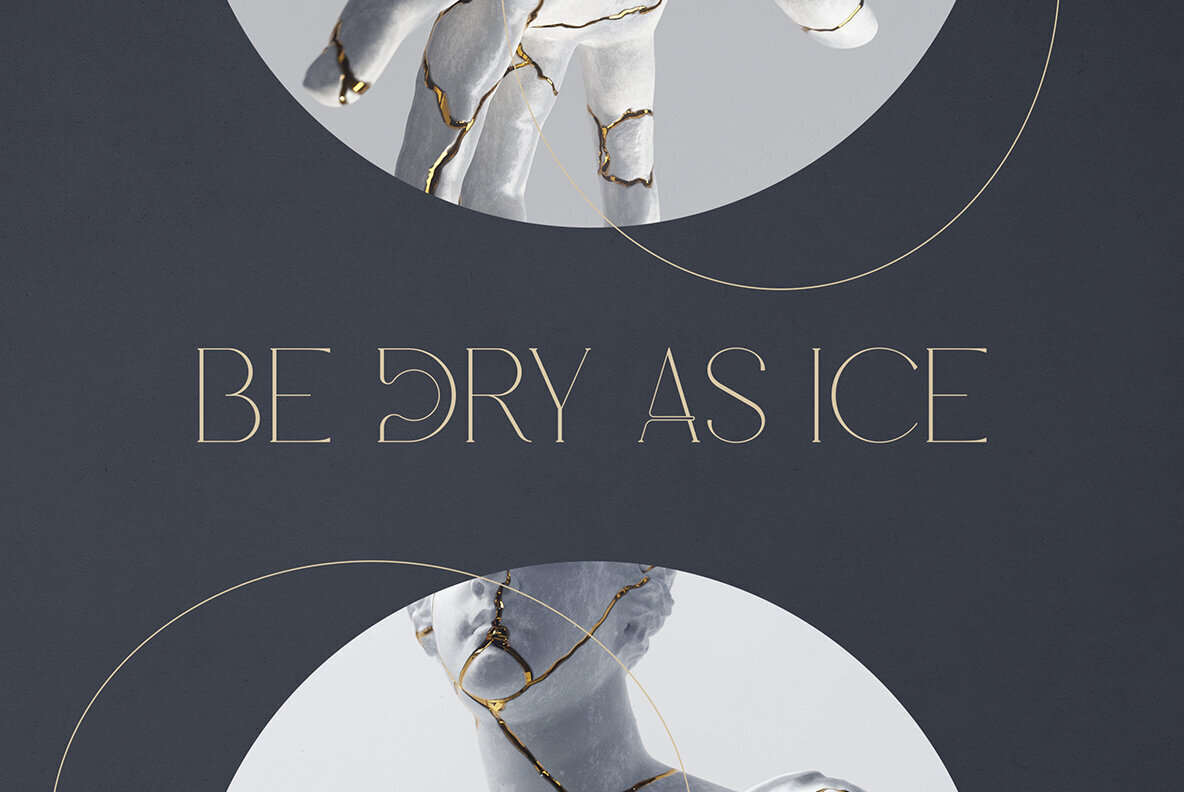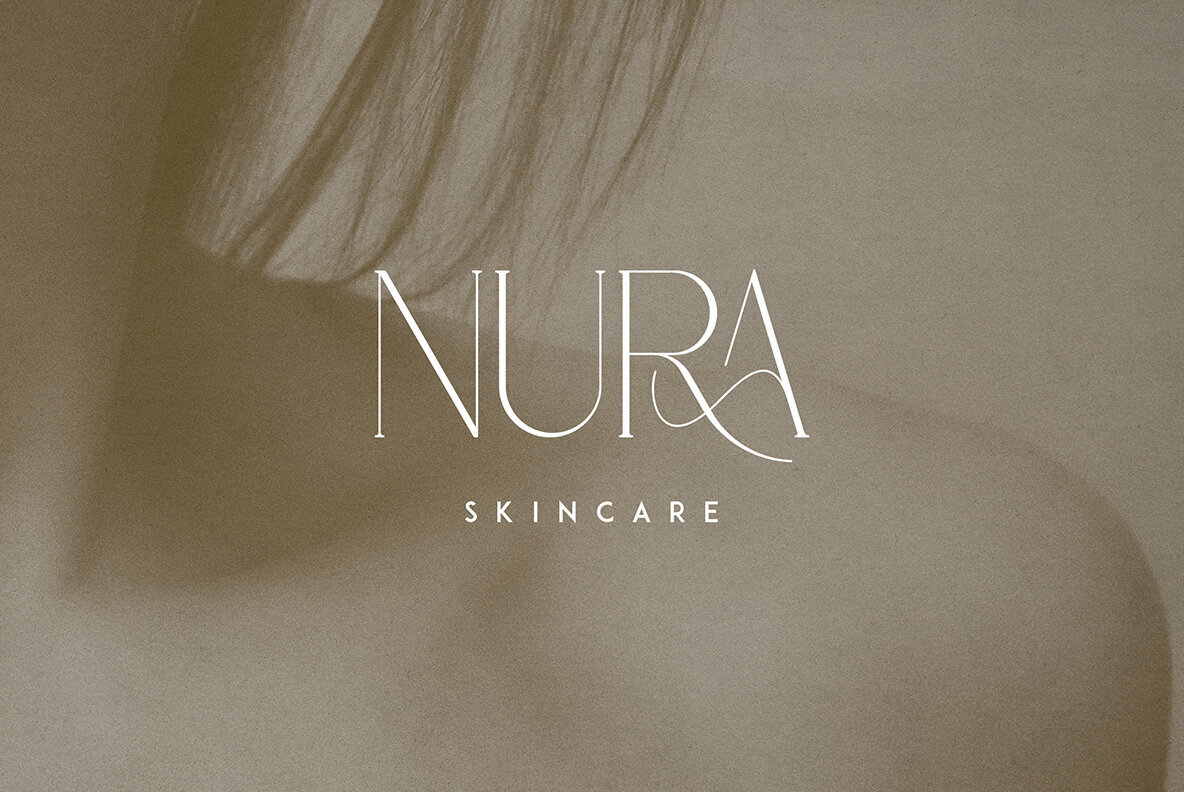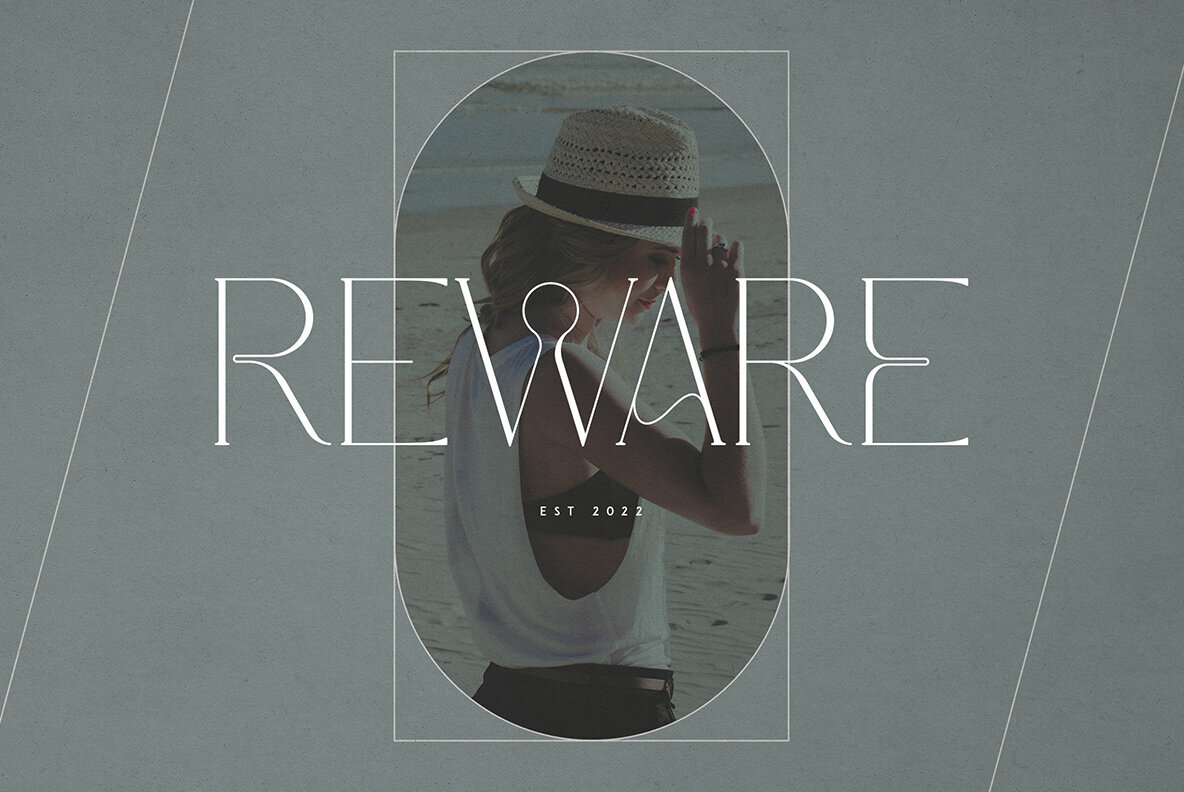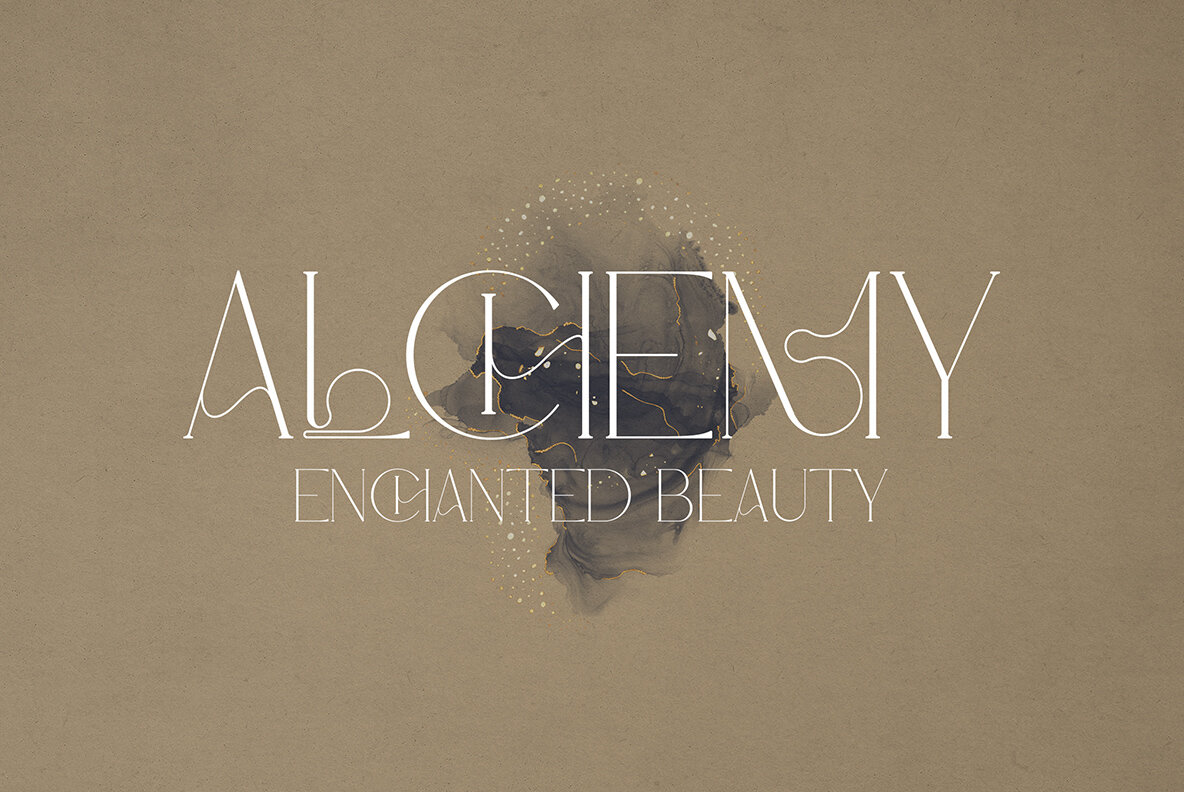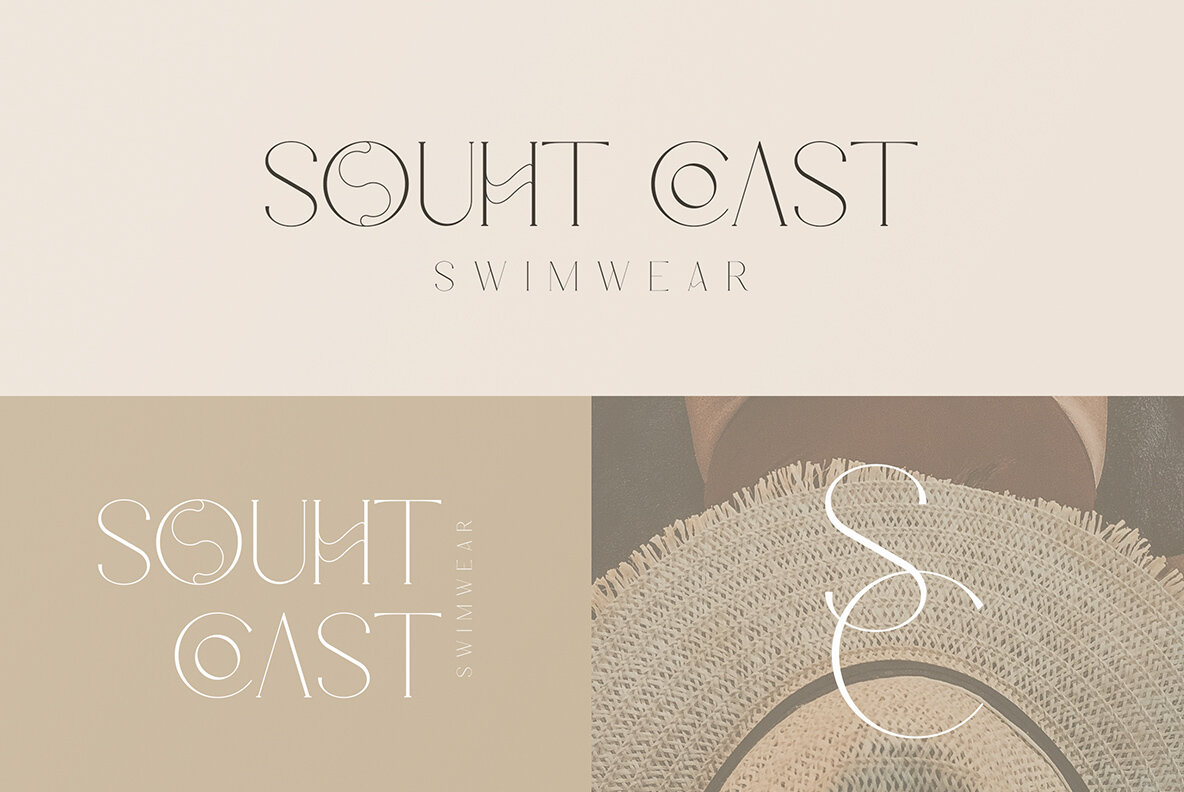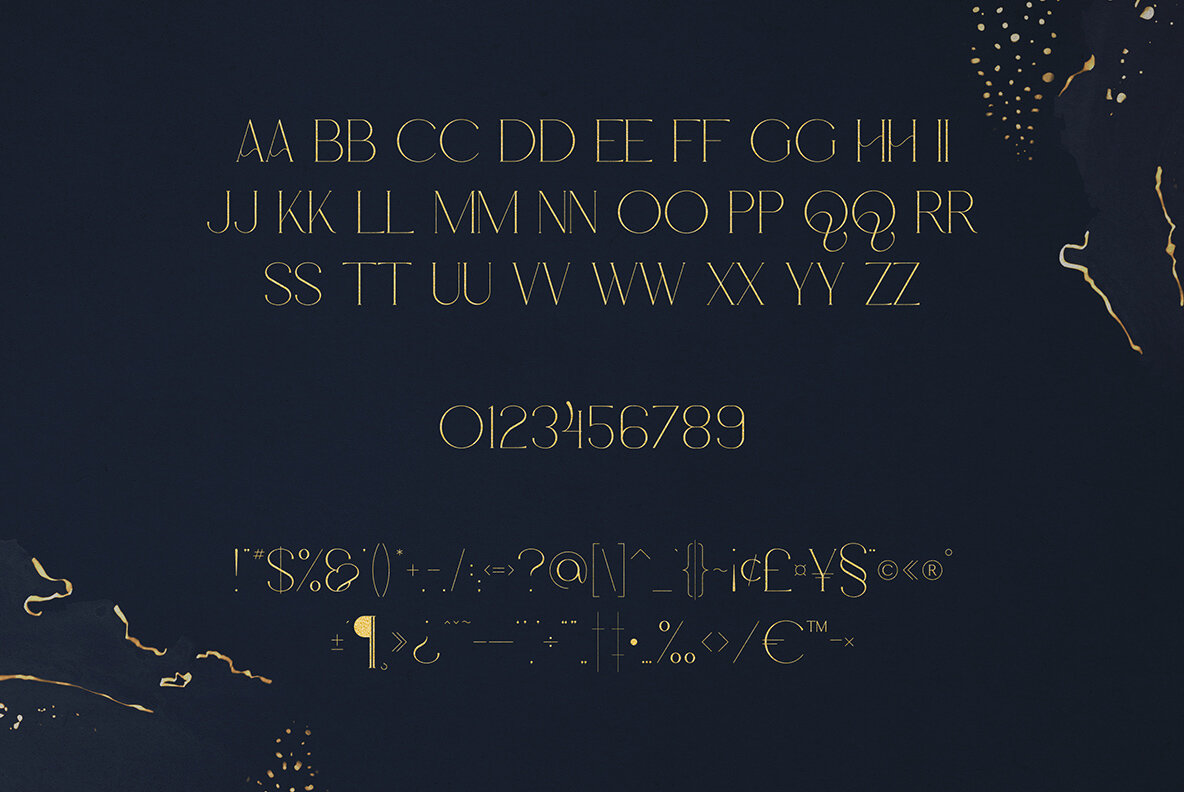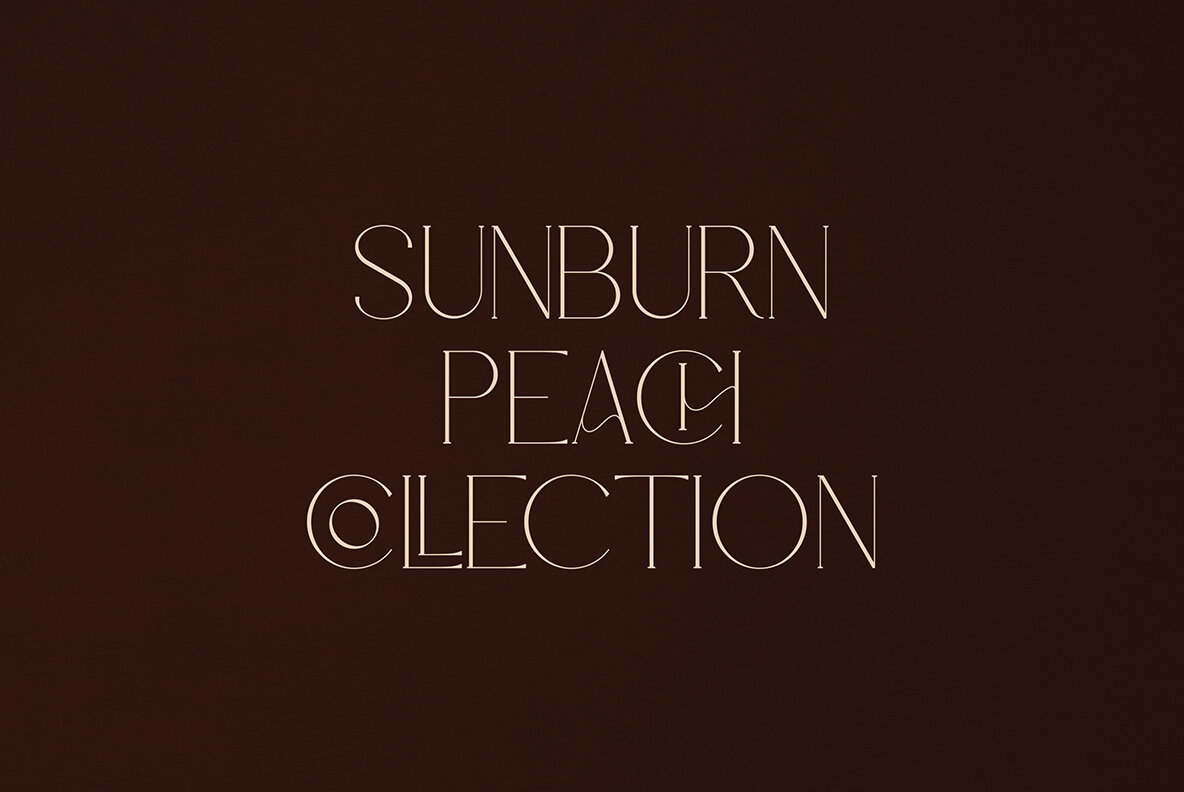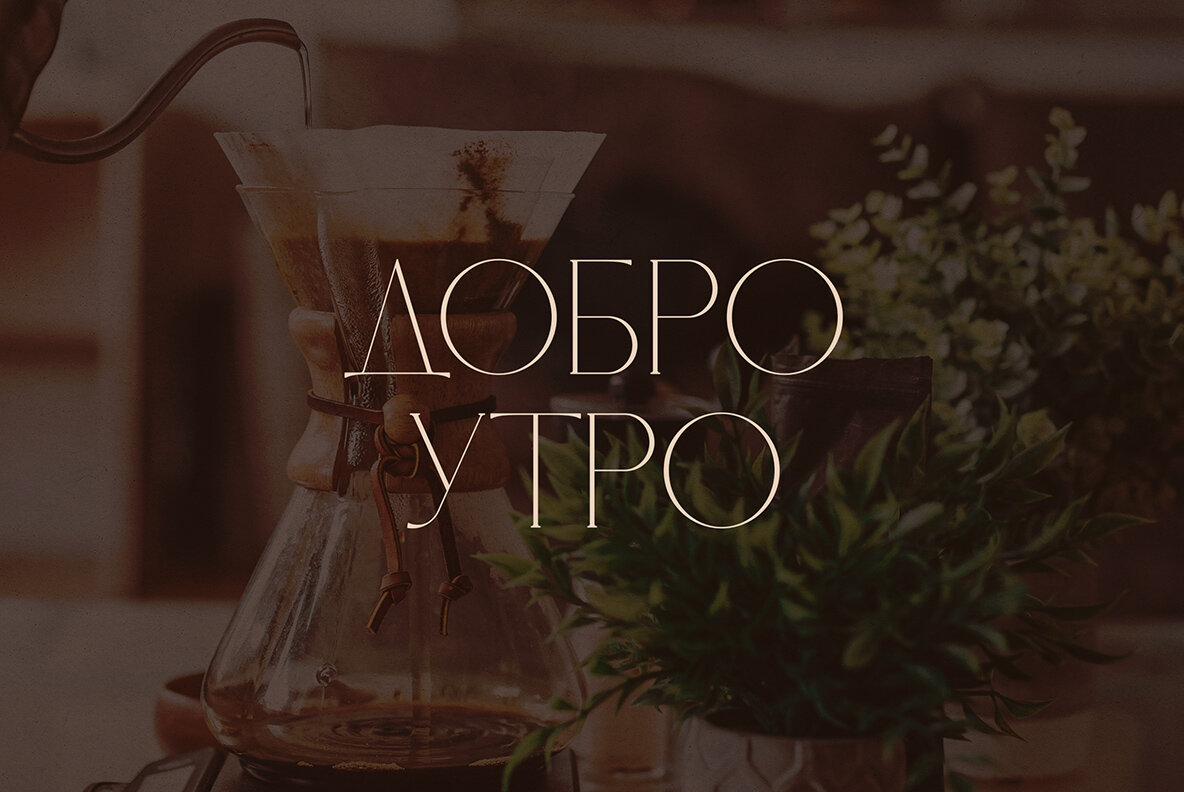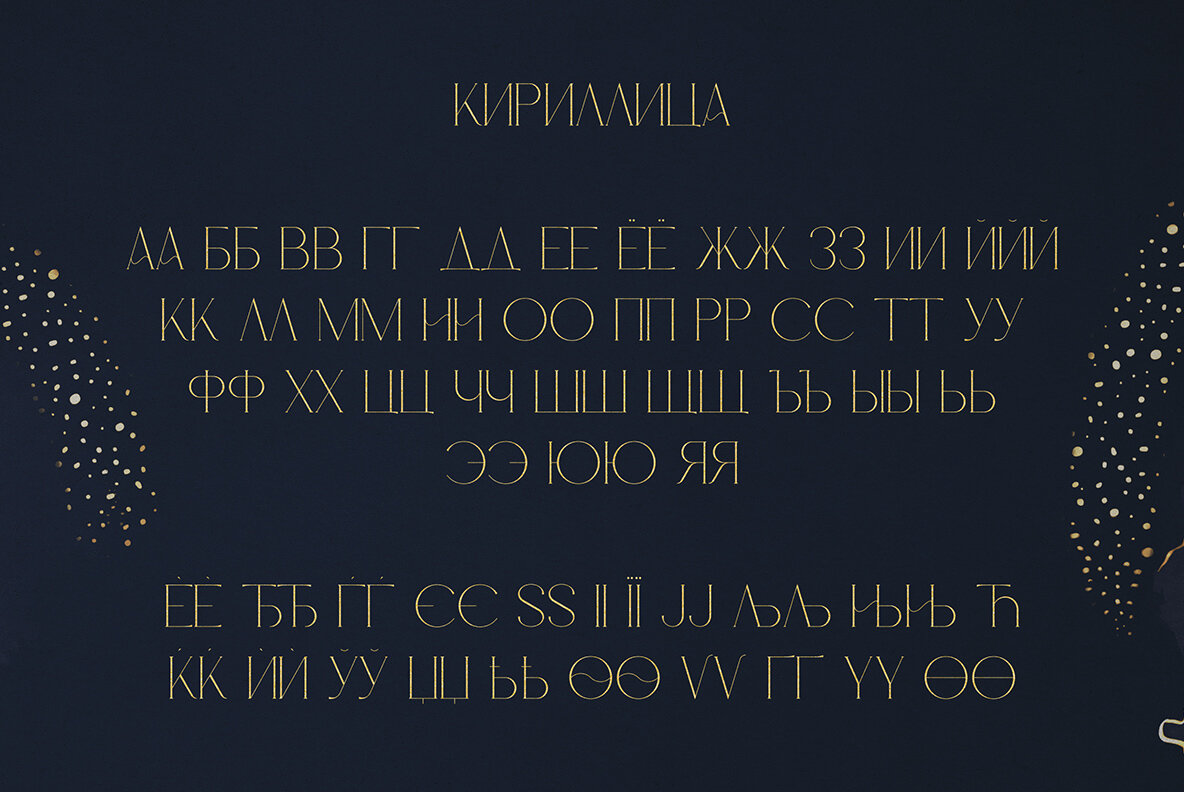
Hidden Gem Font
Hidden Gem Font and Bonus Set (1 font)
The Hidden Gem typeface offers an extraordinary blend of elegance and abstraction, supporting both Latin and Cyrillic scripts. With the unique fusion of alternate and ligature glyphs, your typography will command attention in any design project. Crafted for a global audience, this font seamlessly integrates into diverse linguistic landscapes, supporting 95 languages across continents. Express your creativity further with a bonus collection of 8 abstract shapes, perfect for adding a modern twist to your designs. Features:Hidden Gem: Elegant Serif with Multilingual Flair